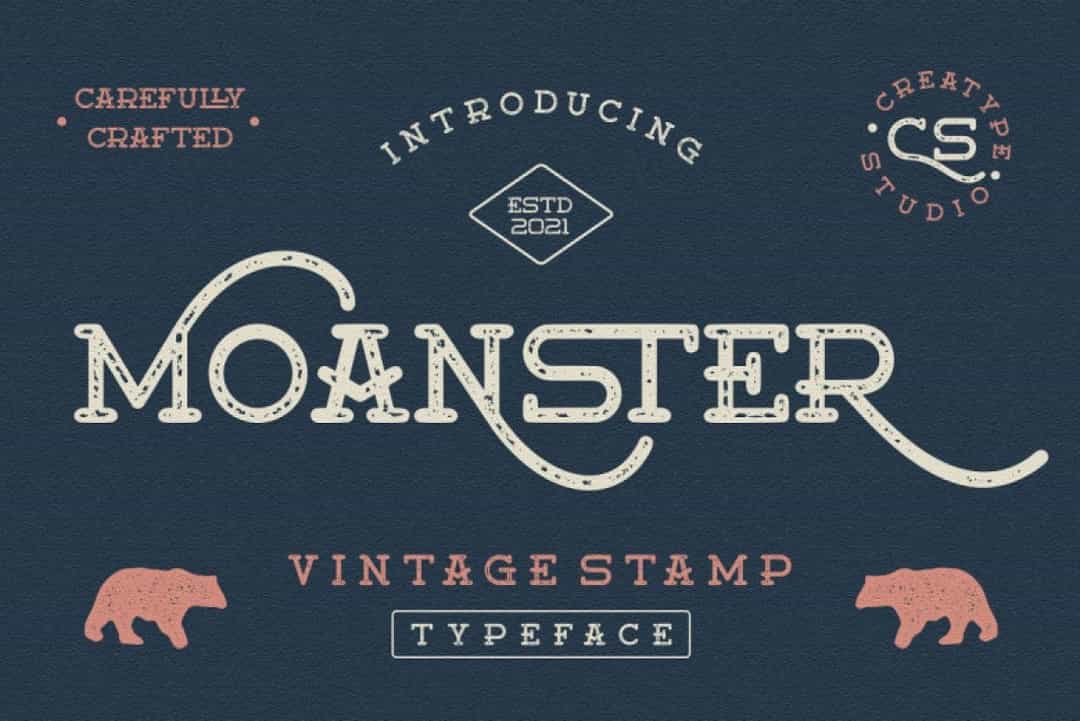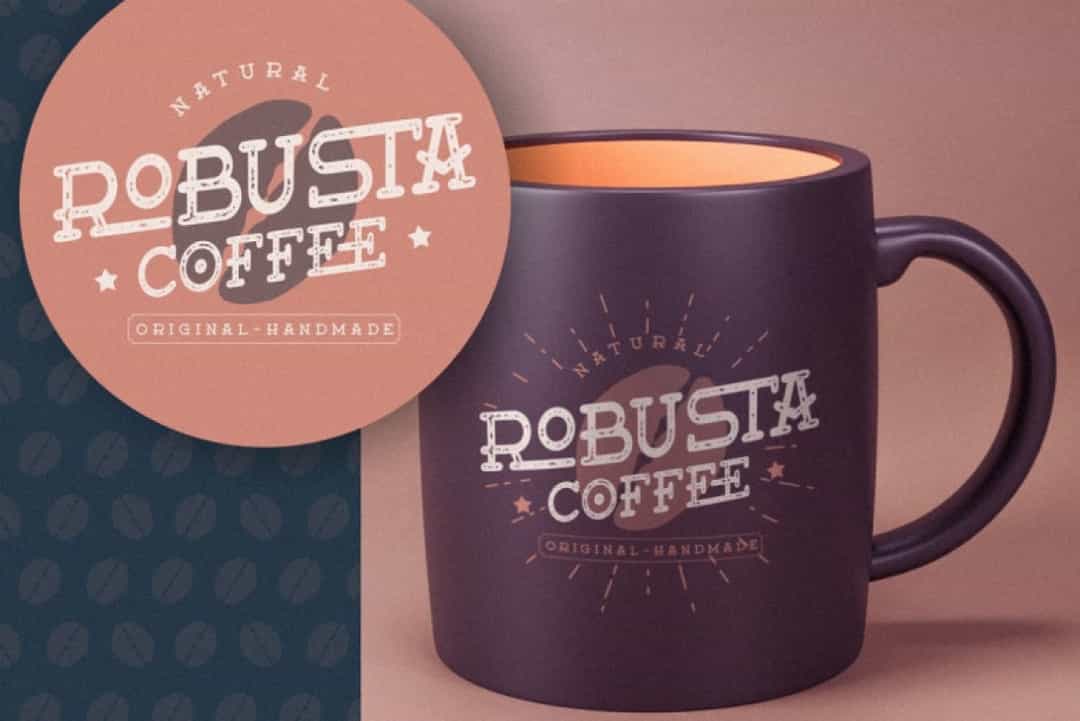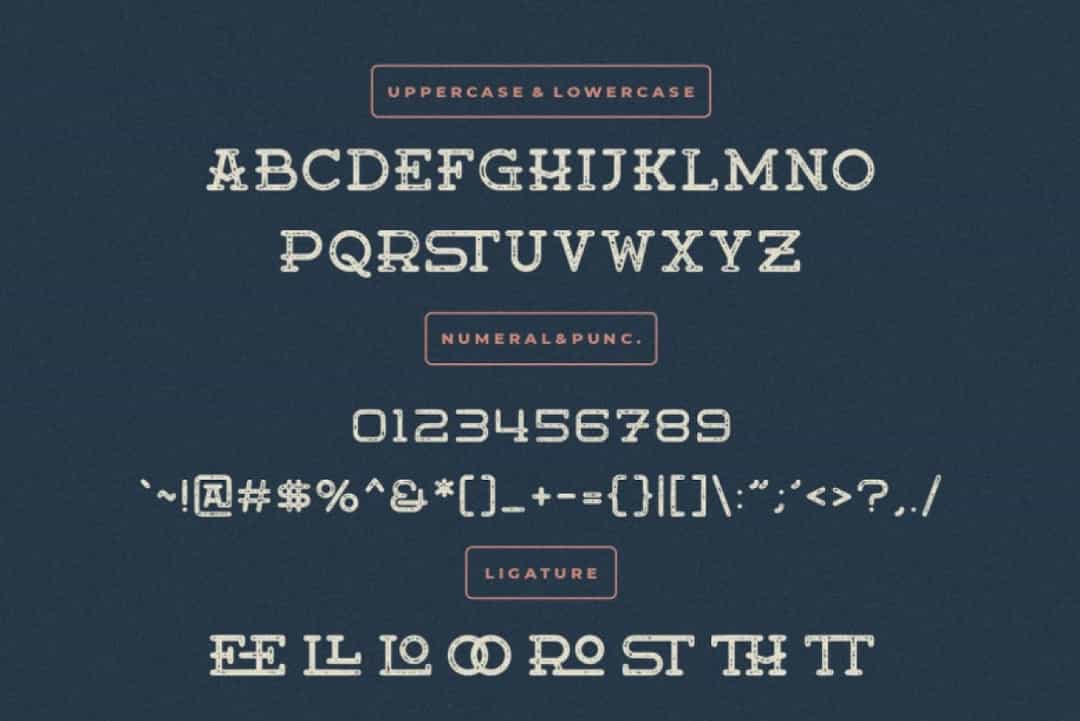
Moanster is an elegant vintage display font with a stamp effect and vintage styles and looks that are perfect for logos, branding projects wedding designs, and social media posts. It can also be used for packaging products with ads, labels photo, watermark invites, stationery and any task that involves handwriting.